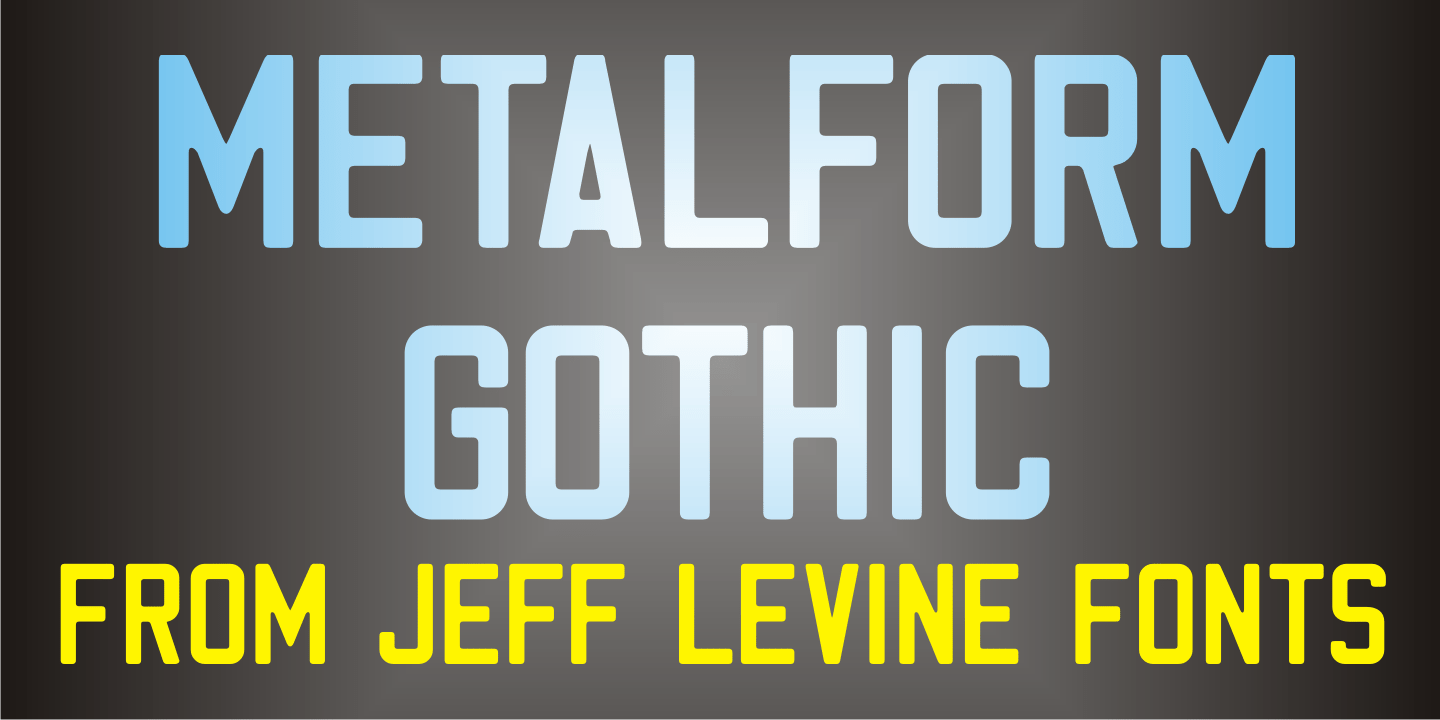
Metalform Gothic
Metalform Gothic JNL is based on examples of stamped metal numbers used for house identification and similar purposes. The lettering is square in shape with rounded corners, perfect for text that needs to emit authoritarian messages or instructions.